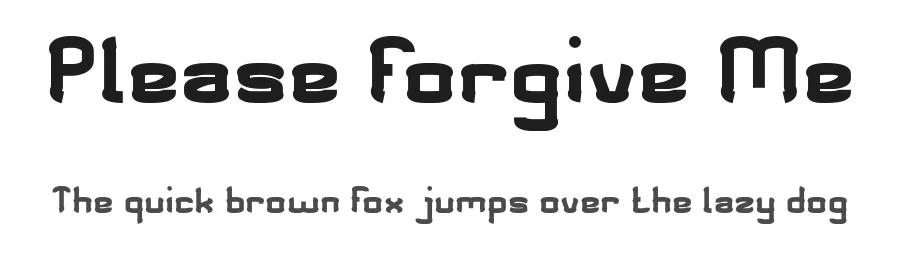
About Ezet Font
Ezet is a 100% FREE Font. It is display font that has unique un usual shape characters. Ezet Font includes full set of Uppercase and Lowercase Basic Characters, Numerals and Punctuation. Ezet will be great for games, school, kids related product, etc! Perfect for branding, labels, headline, posters, websites and so much more!
Ezet Specifications
| Font Family | Ezet |
| Full Name | Ezet |
| PostScript Name | EzetRegular |
| Designer | Ali Alif Rahman & Suci Anita |
Ezet Font is a decorative font that shines as a display or heading face. Pair it with a clean sans-serif or serif font for body text β the contrast creates a clear hierarchy while the two styles stay balanced and easy to read.
Ezet Font